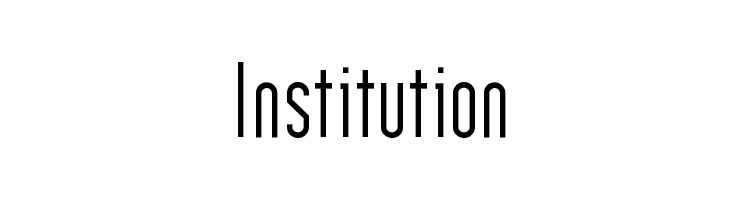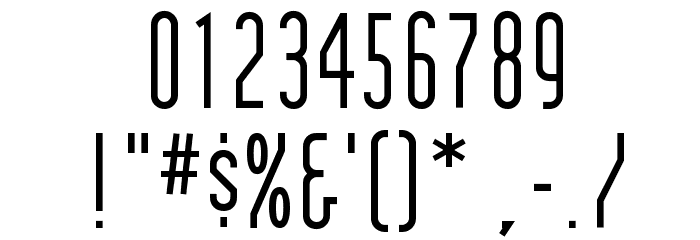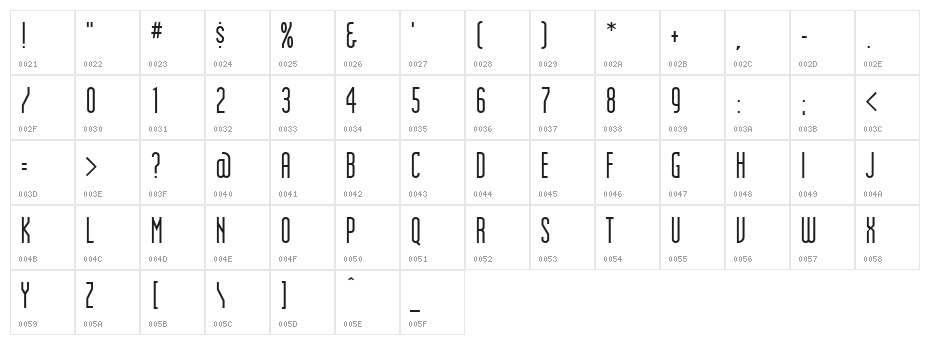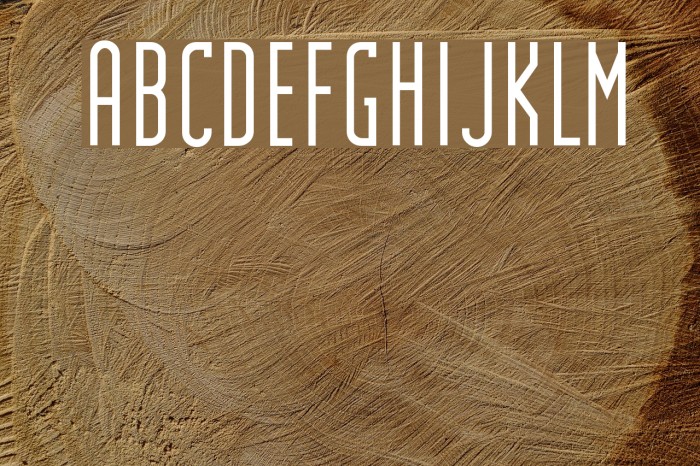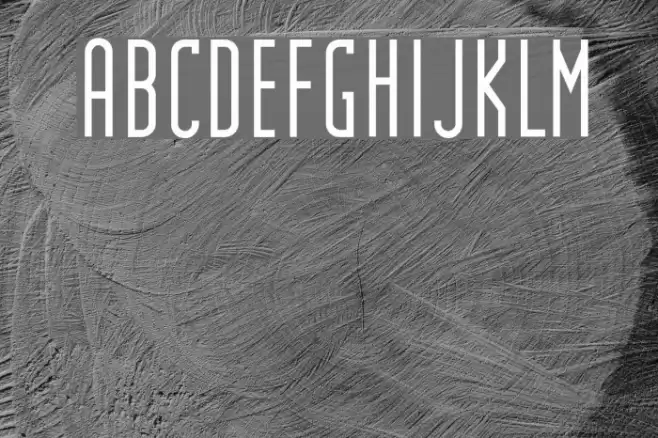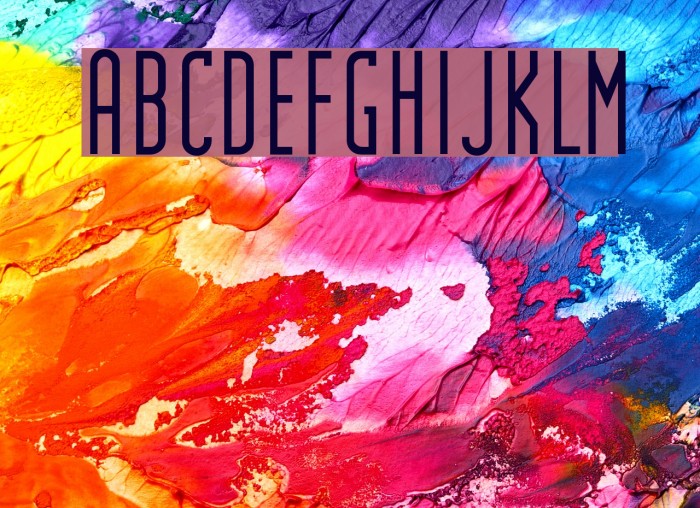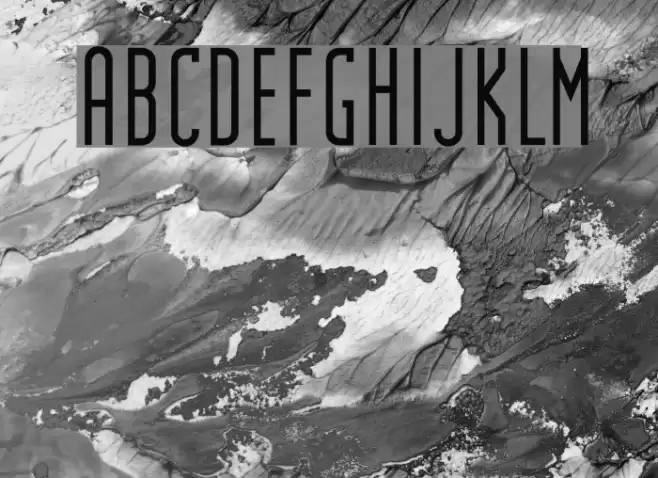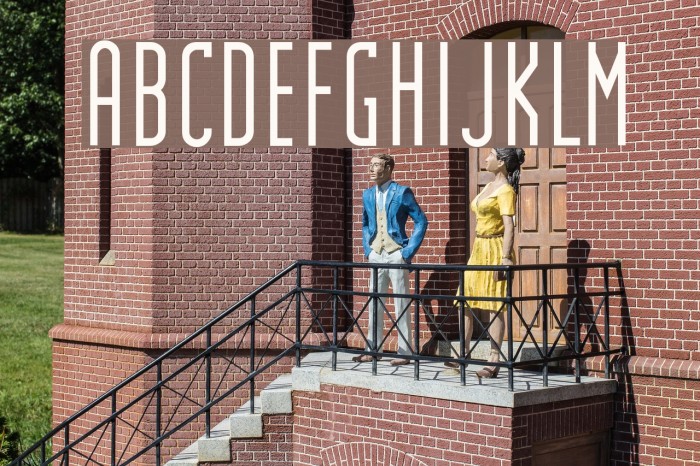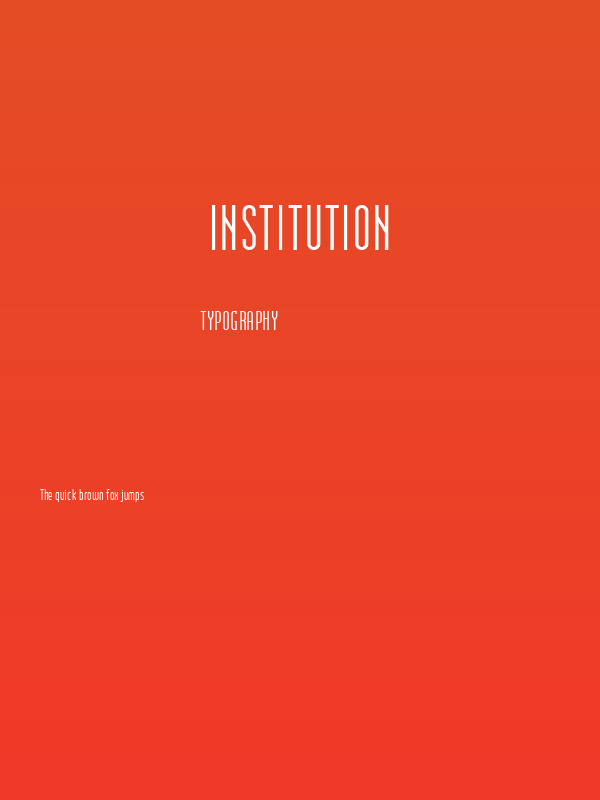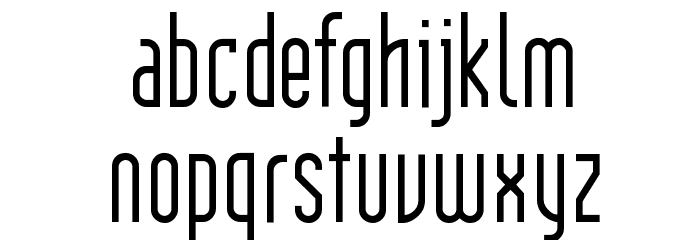
Institution Font
Institution Description
This font features a tall, narrow design with clean, straight lines that convey a modern and professional appearance. The uppercase letters are uniform in height, while the lowercase letters maintain a consistent style with slightly rounded edges. The numerals are distinct and easy to read, matching the overall aesthetic of the alphabet. Special characters are well-integrated, maintaining the font's sleek and contemporary look. The font's design is minimalistic yet impactful, making it suitable for various applications where clarity and style are essential.
| Use Case | Headlines, Logos, Signage |
| Proposed Projects | Ideal for branding, signage, editorial design, and digital interfaces where a modern and clean look is desired. |